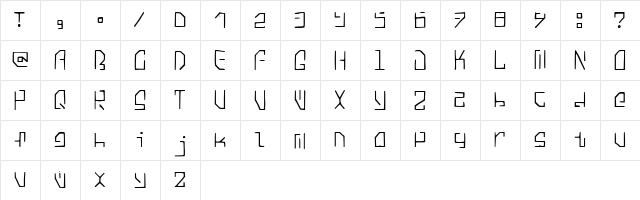
Area Intruder Overdue.. Font Preview
Area Intruder Overdue..
Design Context for Area Intruder Typeface
Area Intruder offers clean, dependable letterforms without strong stylistic allegiance, making it a practical choice for designers who need flexibility.